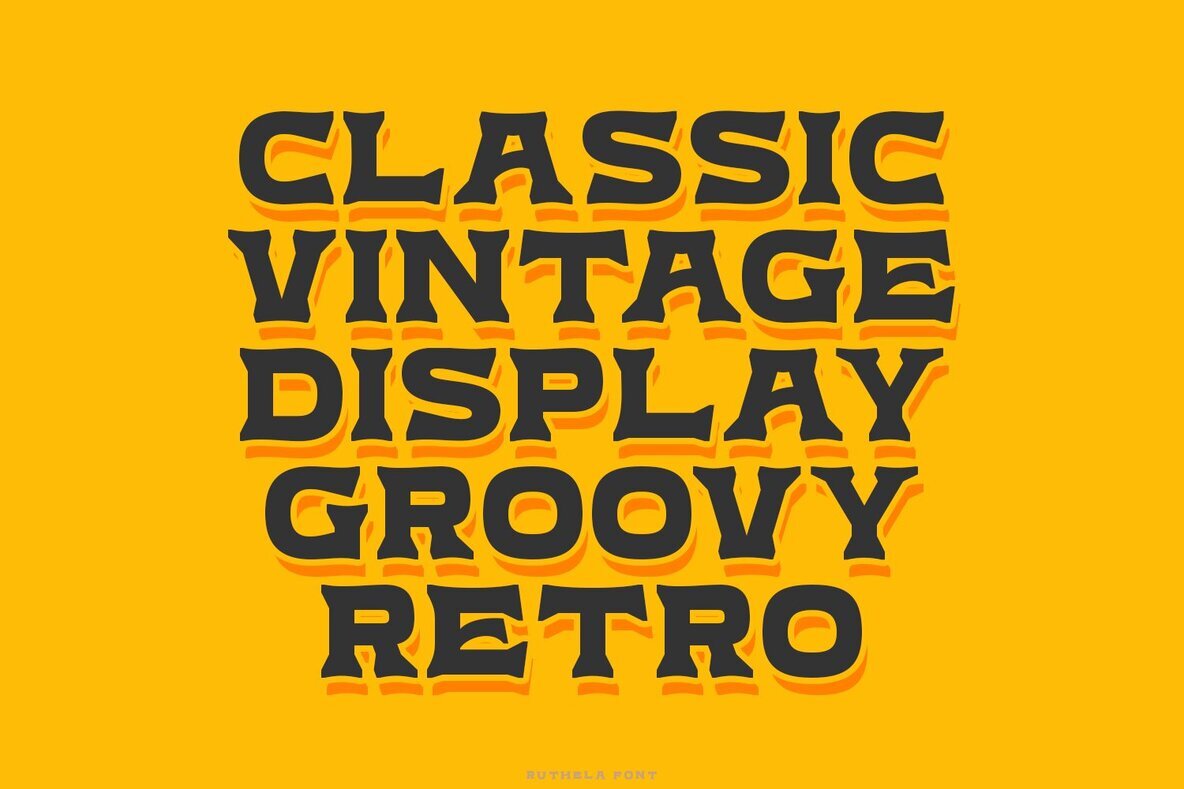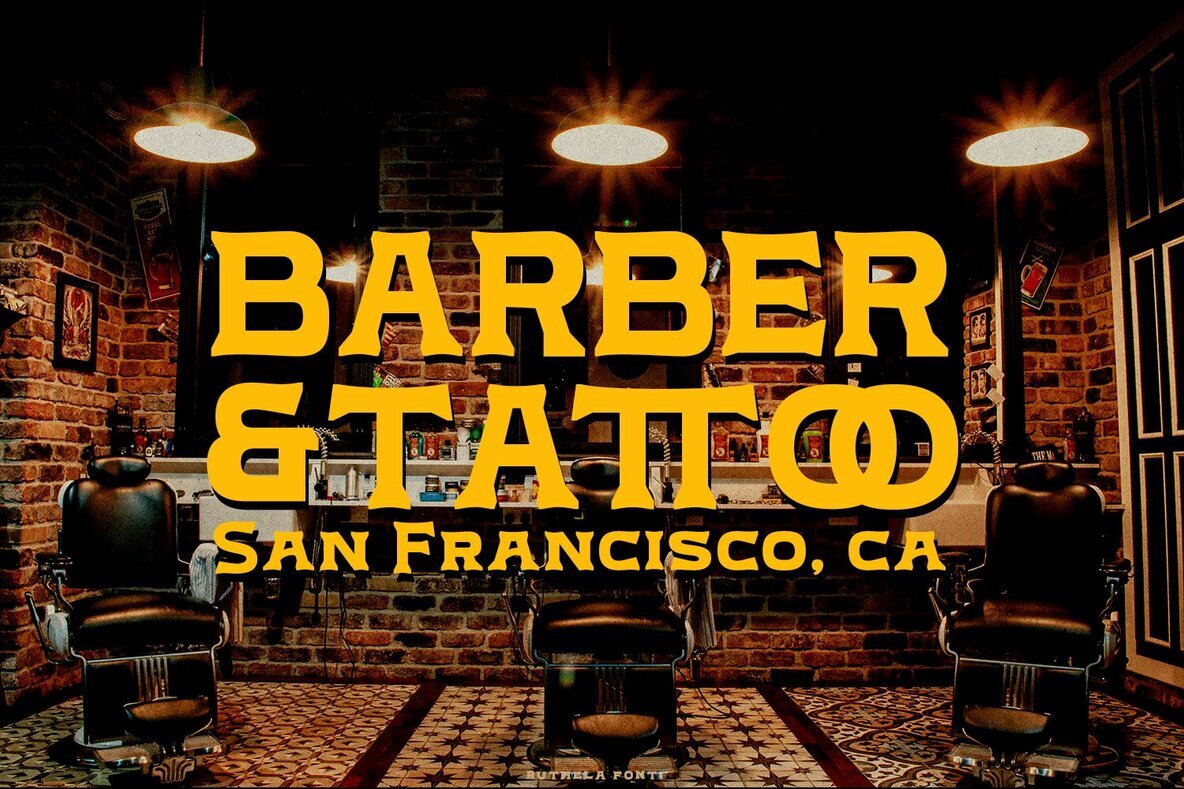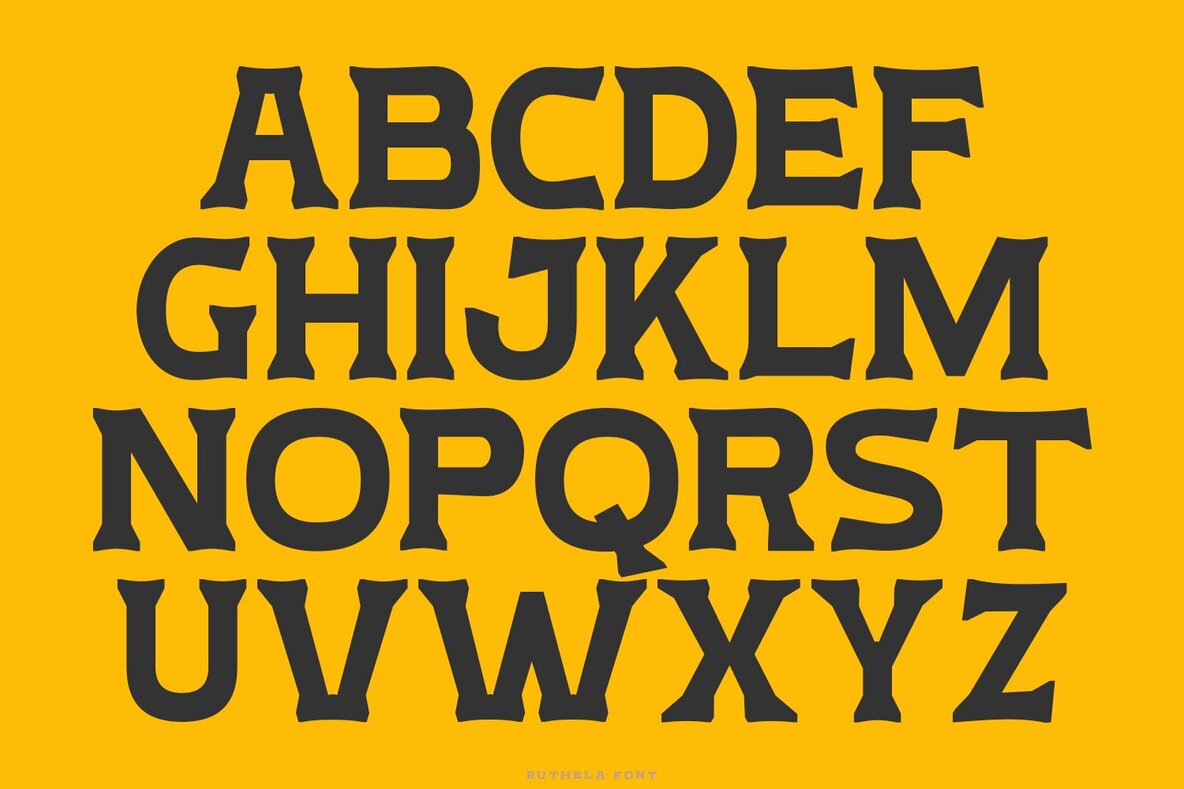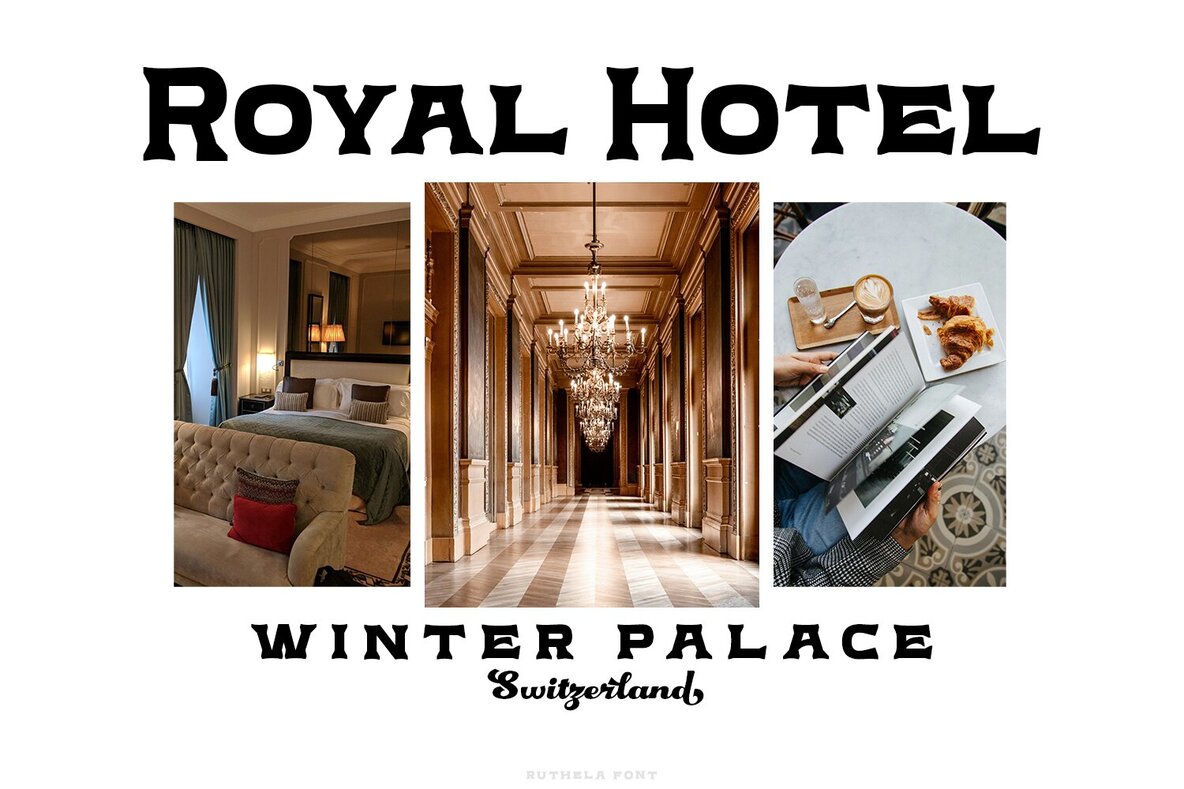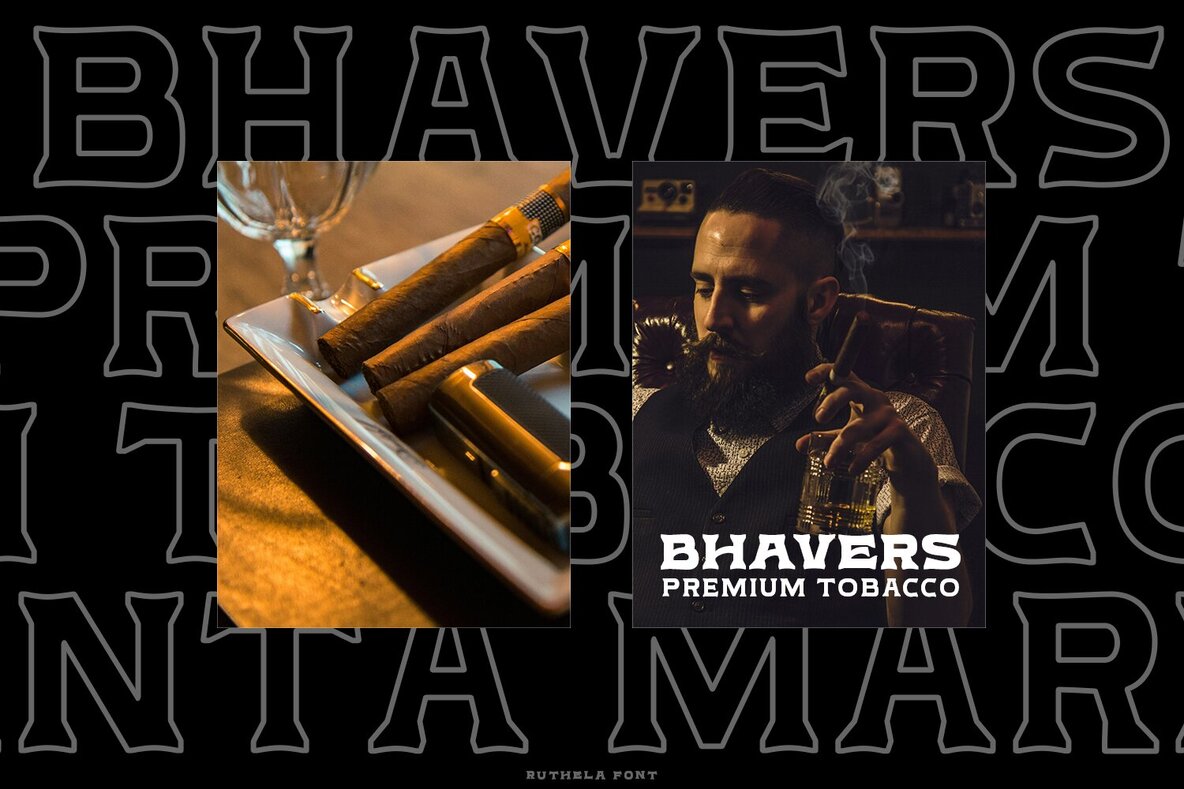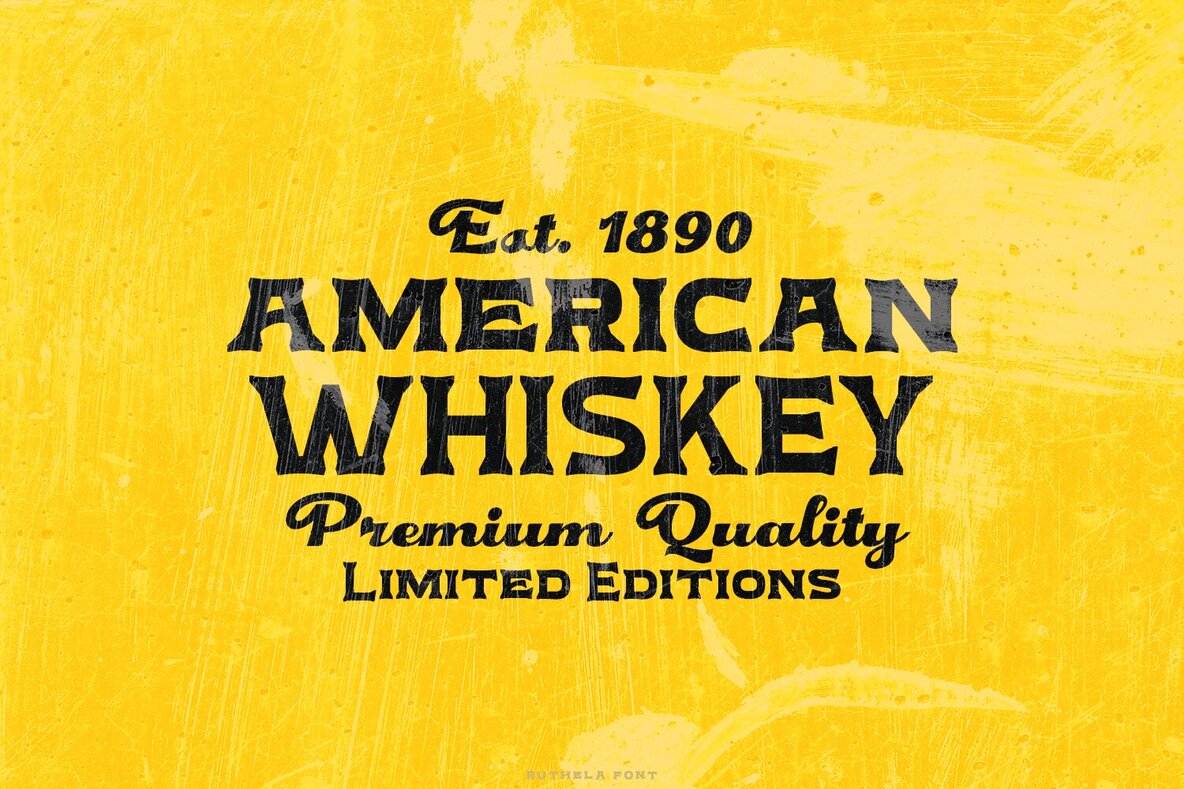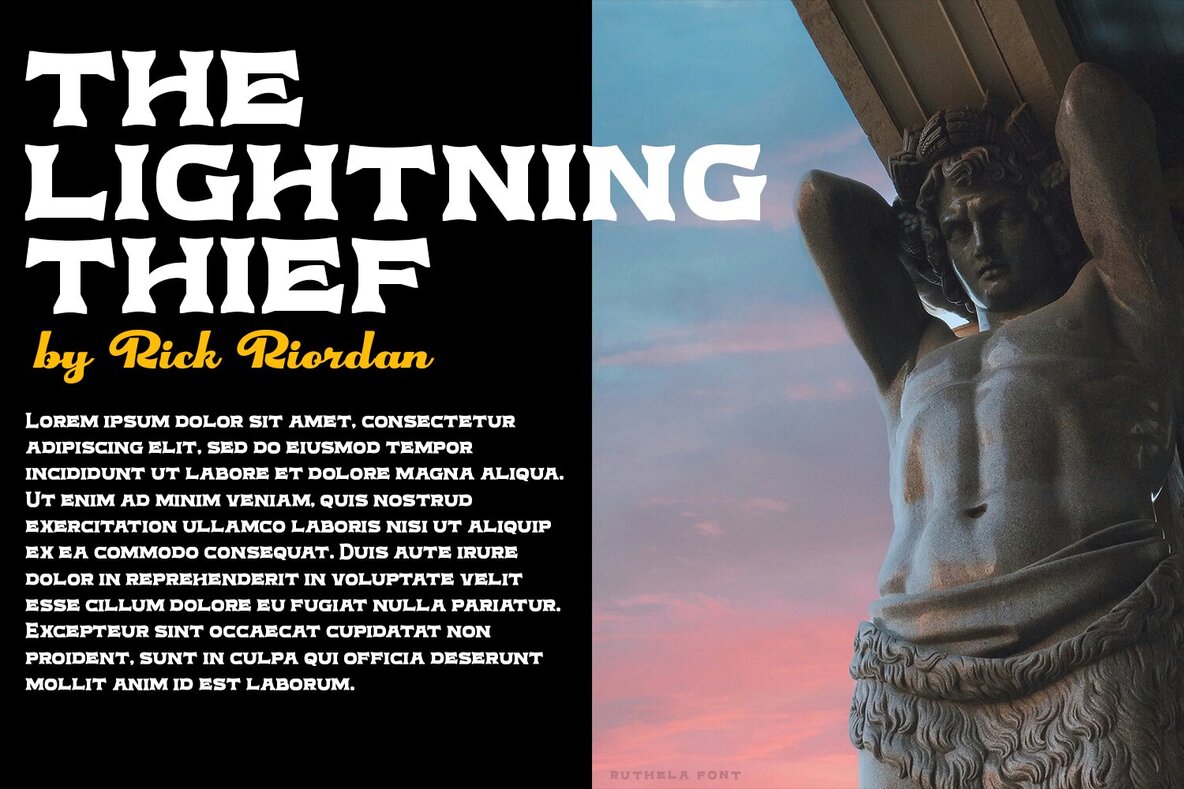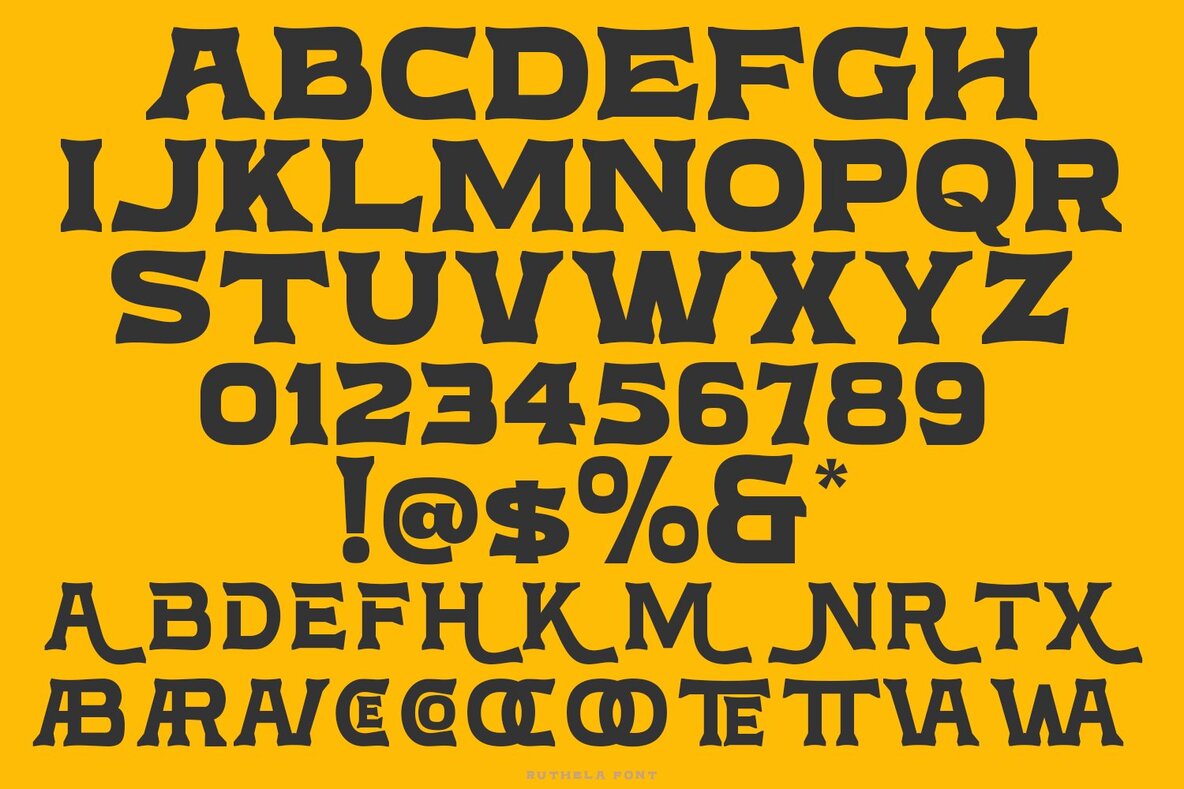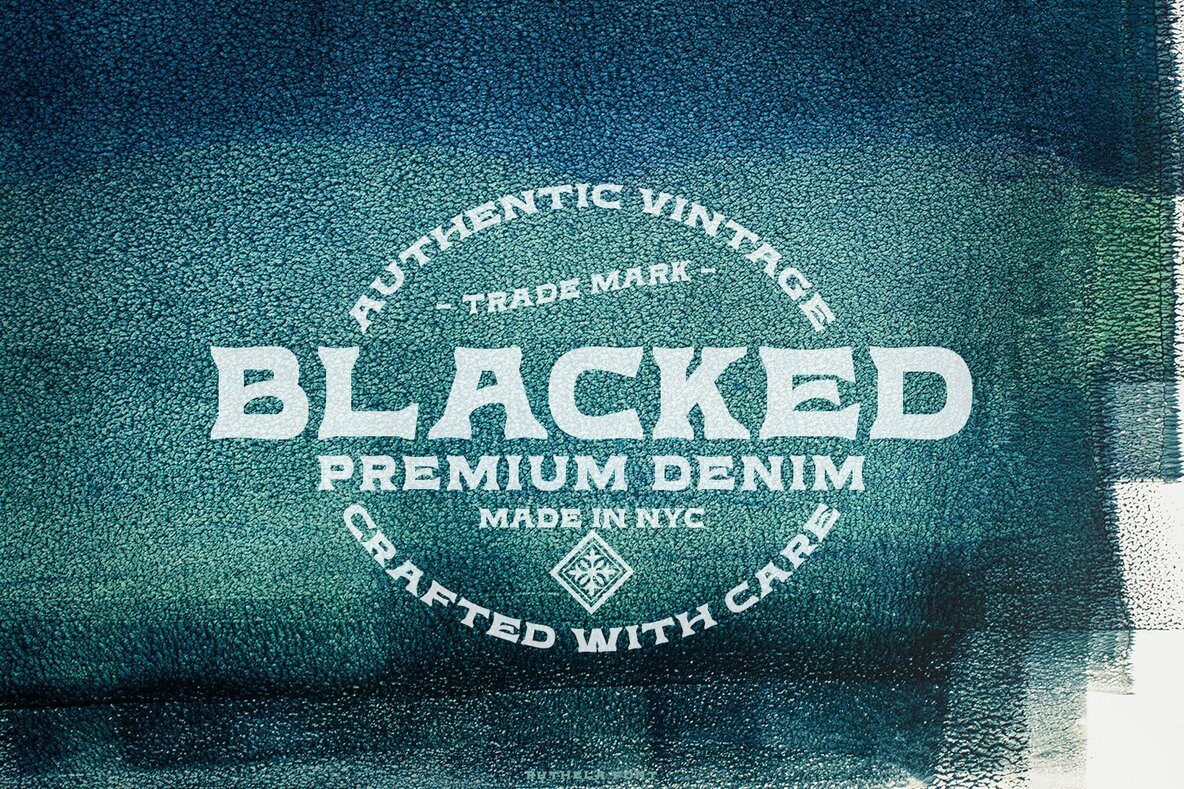
Ruthela Font
Ruthela is a vintage font, come with single weight, legible and expressive shapes. You can explore and combine creating rhythm for comfortable reading. A lot of stylish alternates characters will makes this font suitable for your any project design.